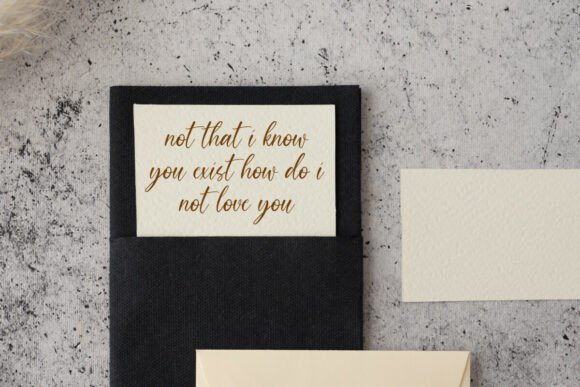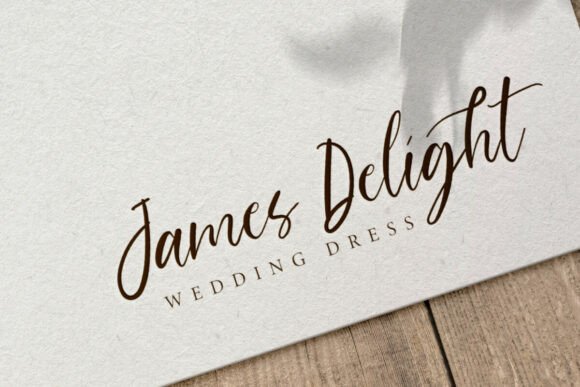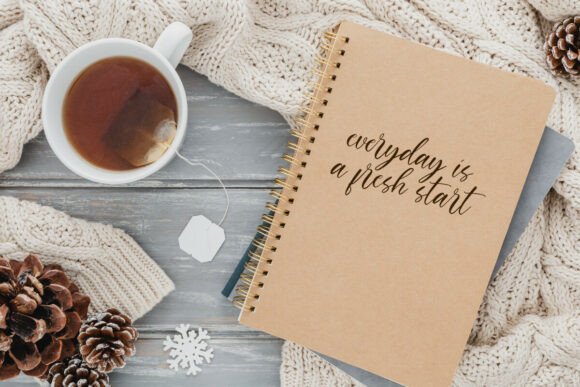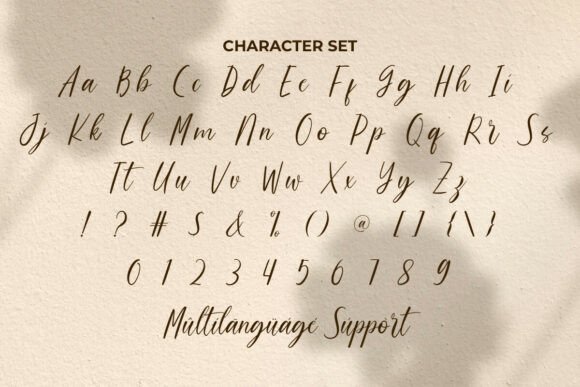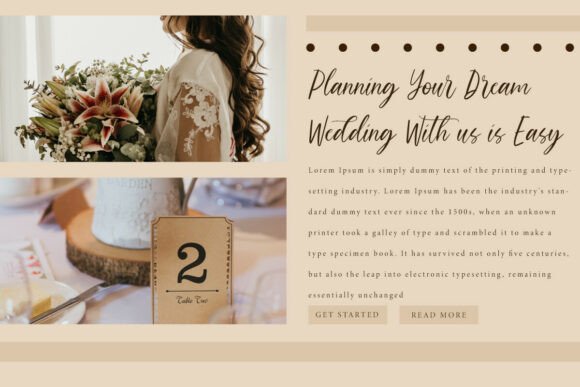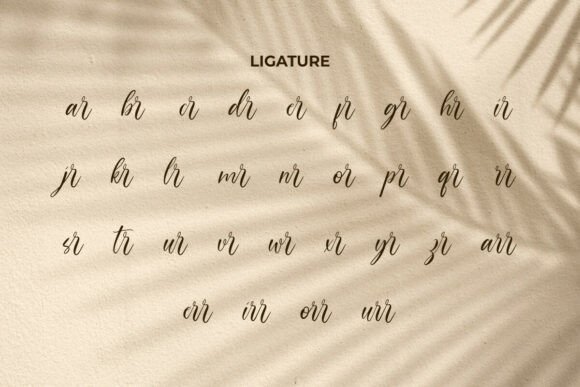
Introduction to James Delight Font
As you sit at your desk, surrounded by scribbled notes and half-finished sketches, the words “the perfect font” often come to mind. You’ve searched far and wide for a design resource that captures the essence of your creative project – a font that feels as personal as a handwritten note. Your search ends here, with the James Delight Font, a masterfully crafted calligraphy typeface that exudes organic warmth and sophistication.
This beautiful font features a natural, rhythmic flow with elegant flourishes, making it an ideal choice for wedding invitations, lifestyle branding, and artisanal product packaging. Its unique aesthetic is sure to elevate your designs and leave a lasting impression on your audience.
Key Features of James Delight Font
- High-quality design resource for creative projects, offering a unique and elegant touch.
- Transparent background, allowing for seamless integration into various design elements.
- Features a sophisticated and modern design, perfect for use in logos, branding, and typography-based projects.
- Designed with precision and attention to detail, ensuring a high level of resolution and clarity.
- Supports a range of languages, making it a versatile choice for global design projects.
Honest Review: James Delight Font
I recently came across the James Delight Font, and I’m excited to share my honest thoughts on this design resource. The first thing that caught my attention was the high quality of the font, which makes it perfect for any creative project.
- ✨ High-quality design: The James Delight Font is incredibly detailed and well-designed, making it a great addition to any project.
- ✨ Transparent background: The transparent background of this font allows for seamless integration with other design elements.
- ⚠️ Limited font styles: While the James Delight Font is high-quality, it only comes in a few styles, which may limit its versatility in certain projects.
- ⚠️ Not ideal for large-scale use: Due to its high level of detail, the James Delight Font may not be the best choice for large-scale use or high-resolution printing.
Overall, I think the James Delight Font is a great addition to any design arsenal, but it’s essential to consider its limitations before using it in a project.
The James Delight Font is a high-quality, free download design resource that can add a touch of elegance to your creative project. With its transparent background, this font is perfect for designers looking for a versatile and stylish design element.
Tips for Getting the Most Out of James Delight Font
To get the most out of the James Delight Font, use it in conjunction with other design elements to create a unique and eye-catching visual identity. Experiment with different font sizes, colors, and arrangements to find the perfect combination for your project.
Common Use Cases for James Delight Font
The James Delight Font is perfect for use in a variety of creative projects, including invitations, business cards, and brochures. It’s also great for use in digital projects, such as social media graphics and website headers.